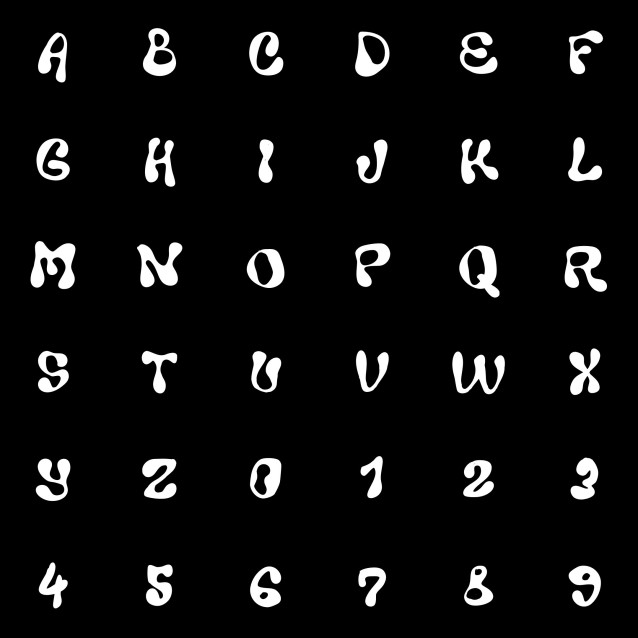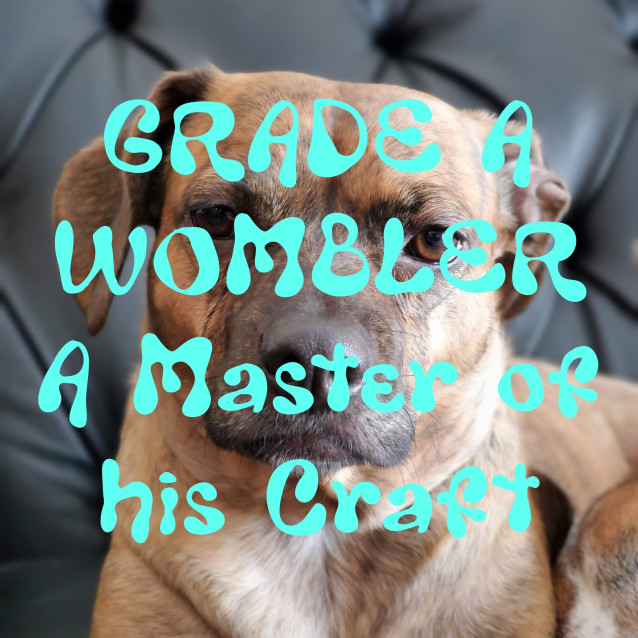
Wombler Display Font is a chunky, comic, and cartoon display font. With its neat and joyful personality, this font will enhance any project you wish to create!